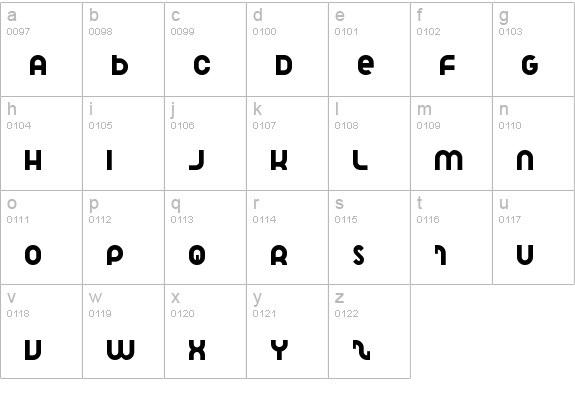
Speedlearn Normal Font Details
Speedlearn Normal is the standard, neutral variant in the Speedlearn typeface family \xE2\x80\x94 well suited to general body text, paragraphs, and standard typographic work.
Introducing Speedlearn Normal, a dynamic and versatile font that effortlessly combines modern simplicity with timeless elegance. Whether you are a professional designer, a creative enthusiast, or simply someone in search of a font that embodies both professionalism and creativity, Speedlearn Normal is the perfect choice for you. This font showcases clean lines and balanced proportions, making it highly legible and easy on the eyes. Its sleek and sophisticated appearance lends itself well to a wide range of design projects, from branding and logo creation to editorial layouts and web design. With its versatility, Speedlearn Normal is suitable for both print and digital mediums, ensuring that your message is conveyed with utmost clarity and style. One of the most remarkable features of Speedlearn Normal is its ability to effortlessly adapt and enhance any design concept. Its bold and confident presence adds a touch of personality to any project, while remaining adaptable enough to complement a variety of design styles. Whether you are aiming for a minimalist and refined aesthetic or a bold and striking look, Speedlearn Normal provides the flexibility to bring your vision to life. And the best part? Speedlearn Normal is available for free download at FontsMarket.com. That's right, you can enjoy the benefits of this incredible font without spending a dime. So why wait? Take advantage of this amazing opportunity and elevate your design projects with Speedlearn Normal today. Download it for free at FontsMarket.com and experience the power of this exceptional font firsthand.